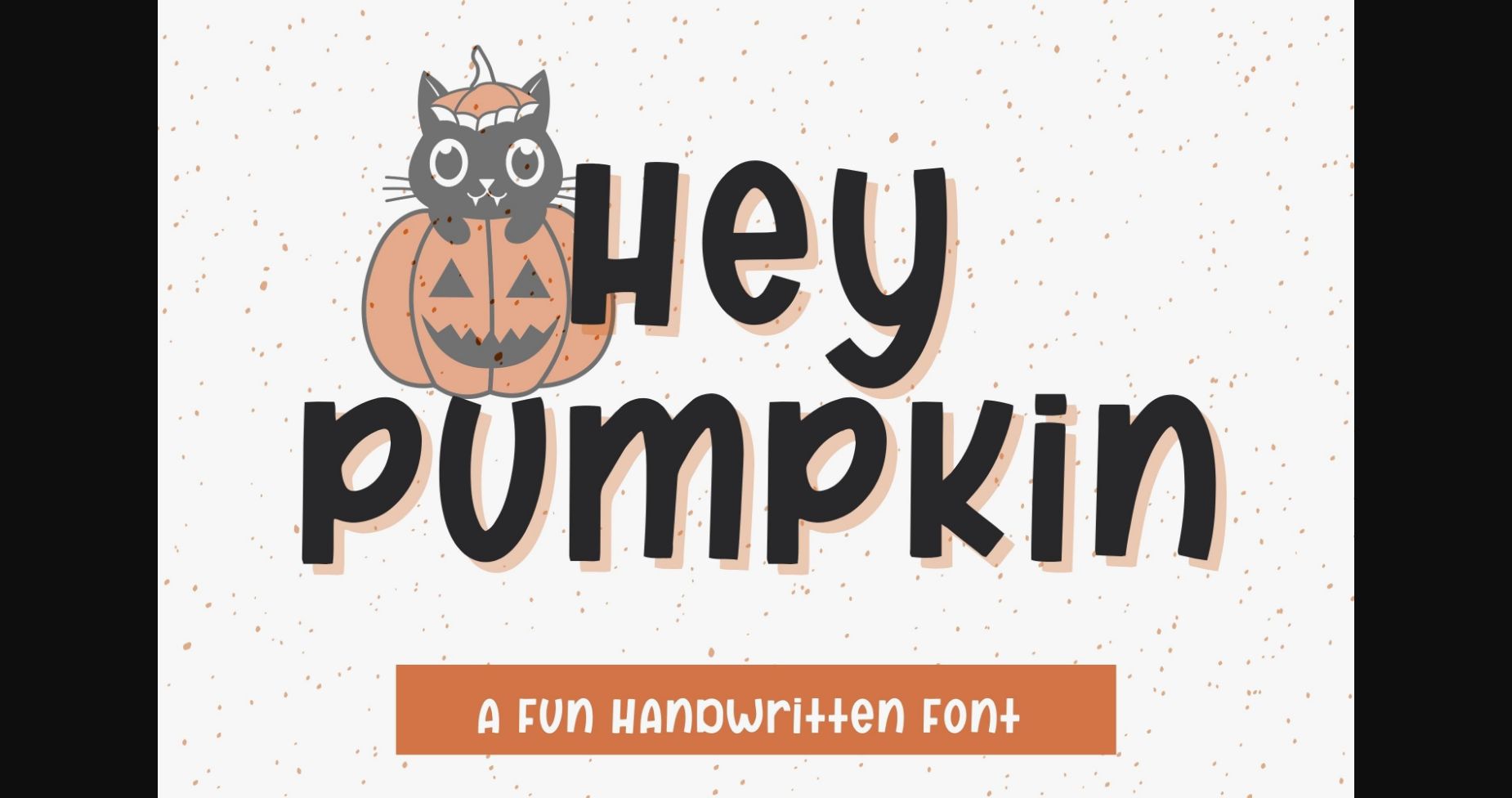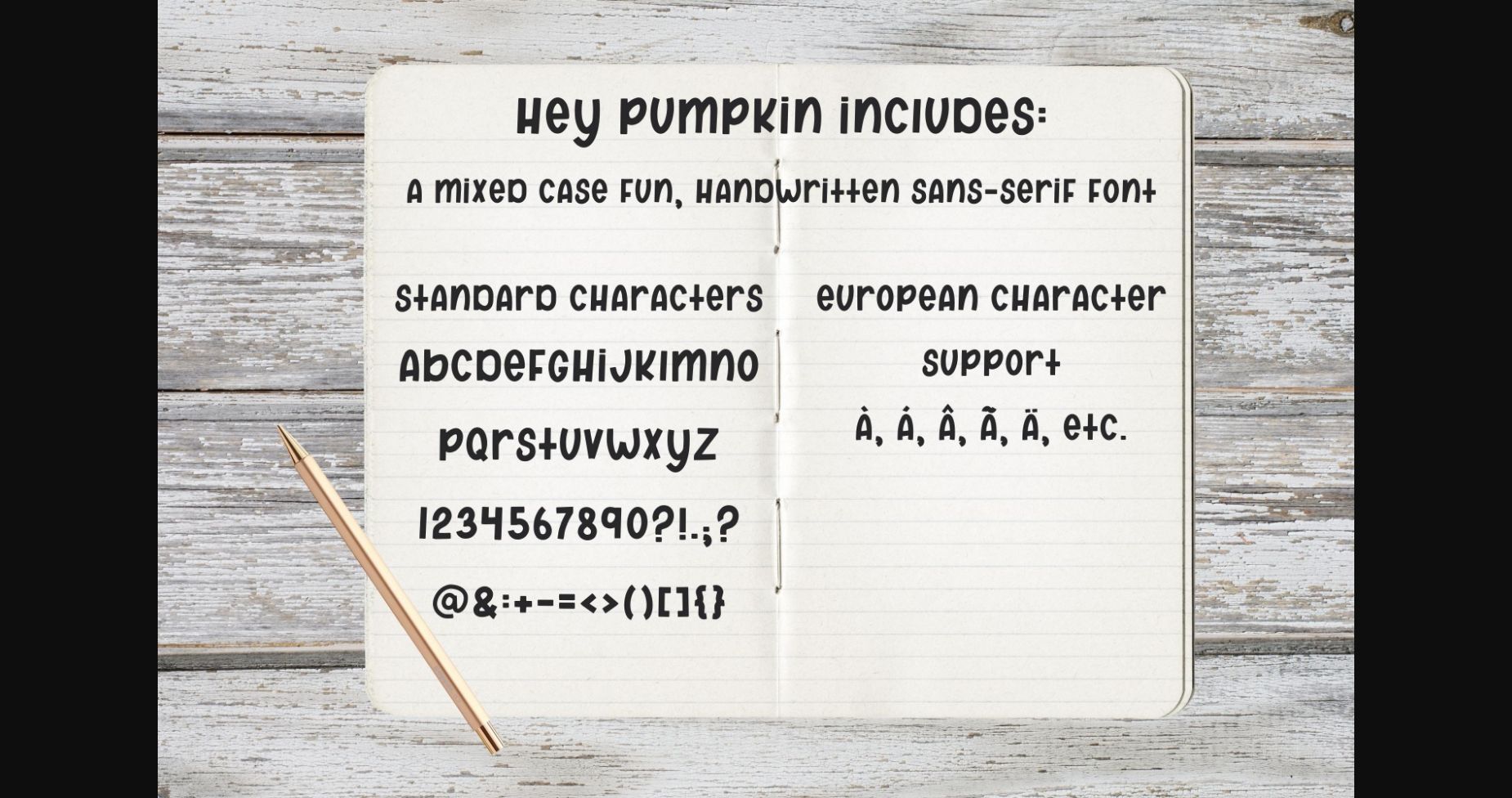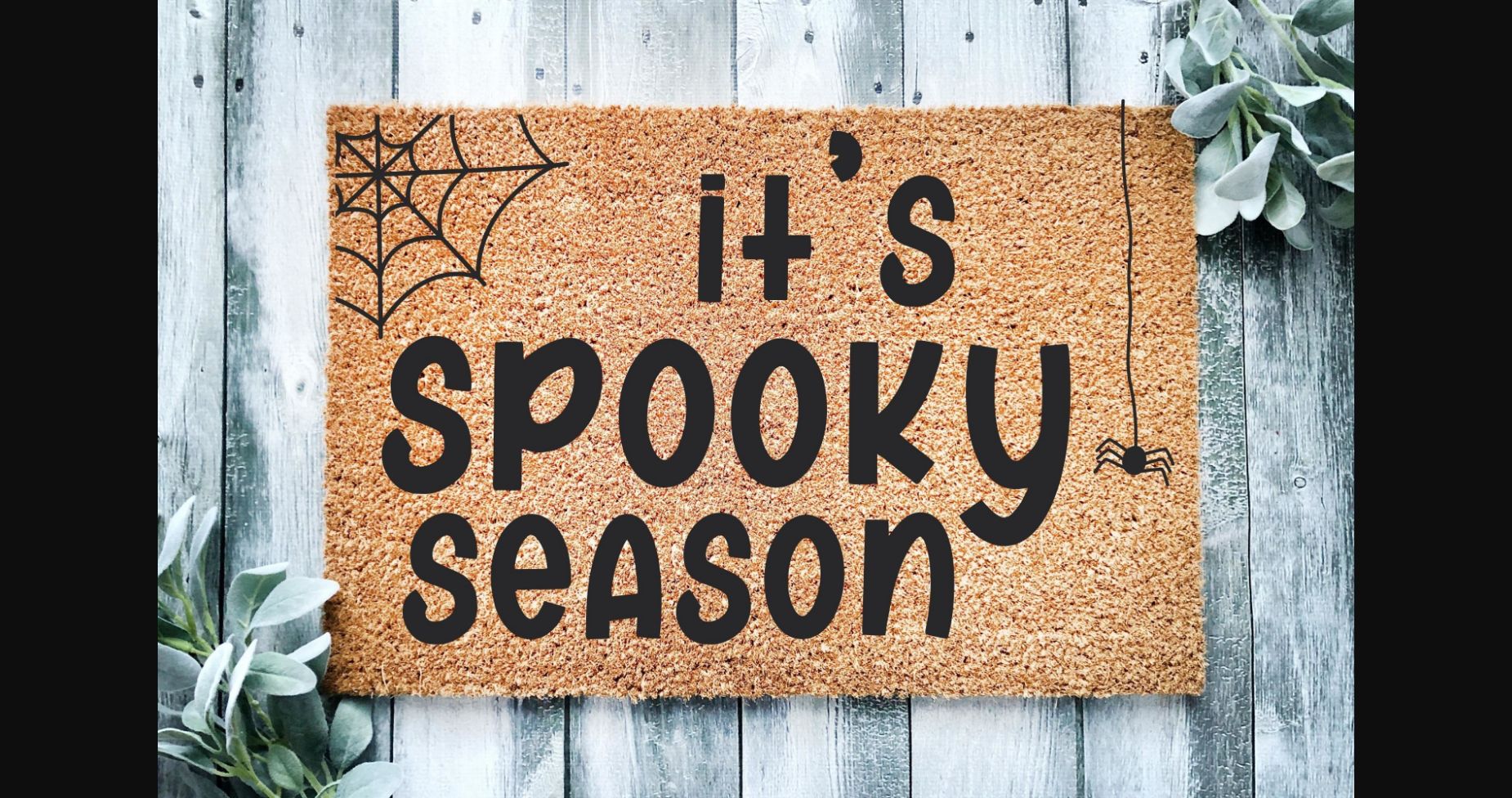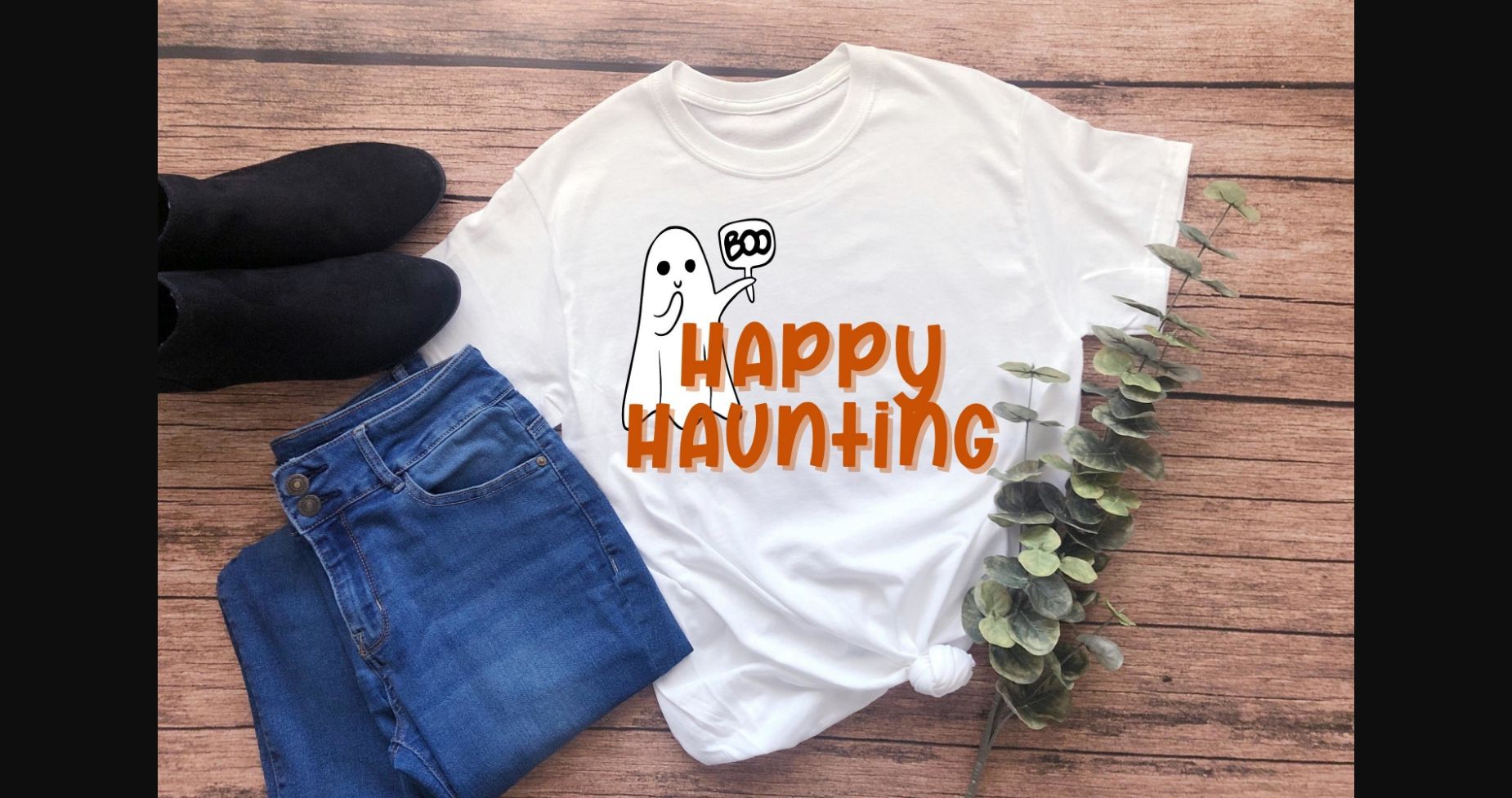
Hey Pumpkin Font
About Hey Pumpkin Font
Hey Pumpkin is a fun and whimsical handwritten sans-serif font. This font is perfect for cute Halloween crafts, greeting cards, t-shirt designs, stickers, and any craft or project that needs a quirky accent.